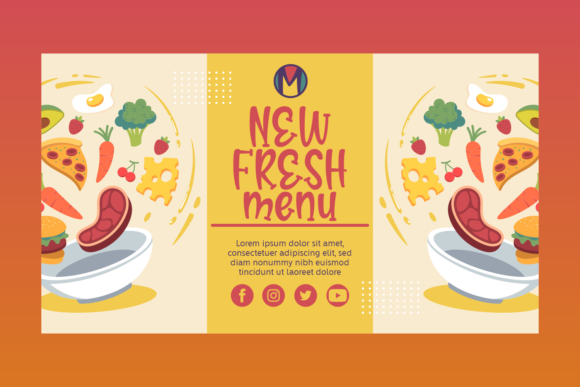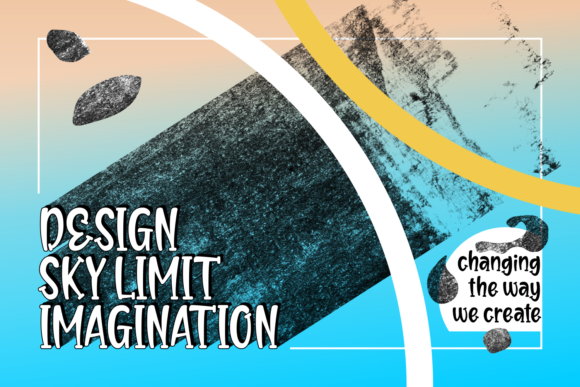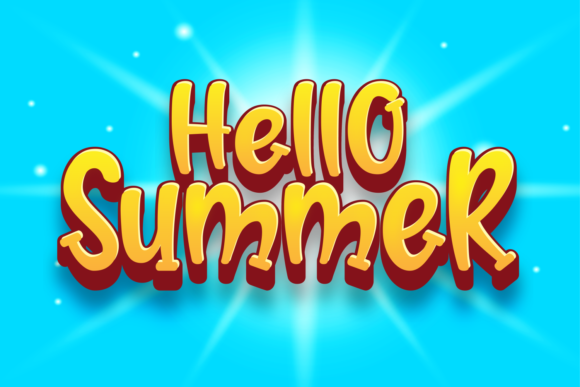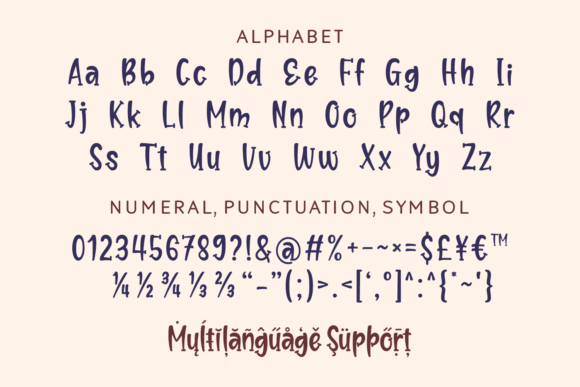
Introducing Done Font: The Perfect Playful Display Font for Crafters and Designers
Are you tired of using the same old fonts in your craft and design projects? Look no further than Done Font, a bold and bubbly display font that’s perfect for adding a playful element to your next creation. Compatible with cutting machines such as Cricut and Silhouette, Done Font is a versatile and fun font that’s sure to take your projects to the next level.
What is Done Font?
Done Font is a display font designed specifically with crafters and designers in mind. Its bold and bubbly personality makes it perfect for adding a touch of whimsy to your projects, from DIY signs and banners to custom vinyl decals and iron-on designs. With its clean and crisp lines, Done Font is easy to read and understand, making it perfect for use in a variety of applications.
Key Features of Done Font
- Bold and Bubbly Personality: Done Font has a unique and playful personality that’s sure to add a touch of fun to your projects.
- Compatible with Cutting Machines: Done Font is compatible with popular cutting machines such as Cricut and Silhouette, making it easy to use in your craft projects.
- Clean and Crisp Lines: With its clean and crisp lines, Done Font is easy to read and understand, making it perfect for use in a variety of applications.
- Versatile: Done Font can be used in a variety of projects, from DIY signs and banners to custom vinyl decals and iron-on designs.
Uses for Done Font
Done Font is perfect for a wide range of craft and design projects, including:
- DIY Signs and Banners: Add a playful touch to your signs and banners with Done Font.
- Custom Vinyl Decals: Use Done Font to create custom vinyl decals for your laptop, water bottle, or any other surface.
- Iron-On Designs: Add a personal touch to your t-shirts, hoodies, and other apparel with Done Font.
- Party Decorations: Use Done Font to create custom party decorations, such as banners, garlands, and more.
Tips for Using Done Font
Here are a few tips for getting the most out of Done Font:
- Experiment with Different Sizes: Try using Done Font in different sizes to add visual interest to your projects.
- Combine with Other Fonts: Combine Done Font with other fonts to create a unique and eye-catching look.
- Use in Combination with Images: Use Done Font in combination with images to add a personal touch to your projects.